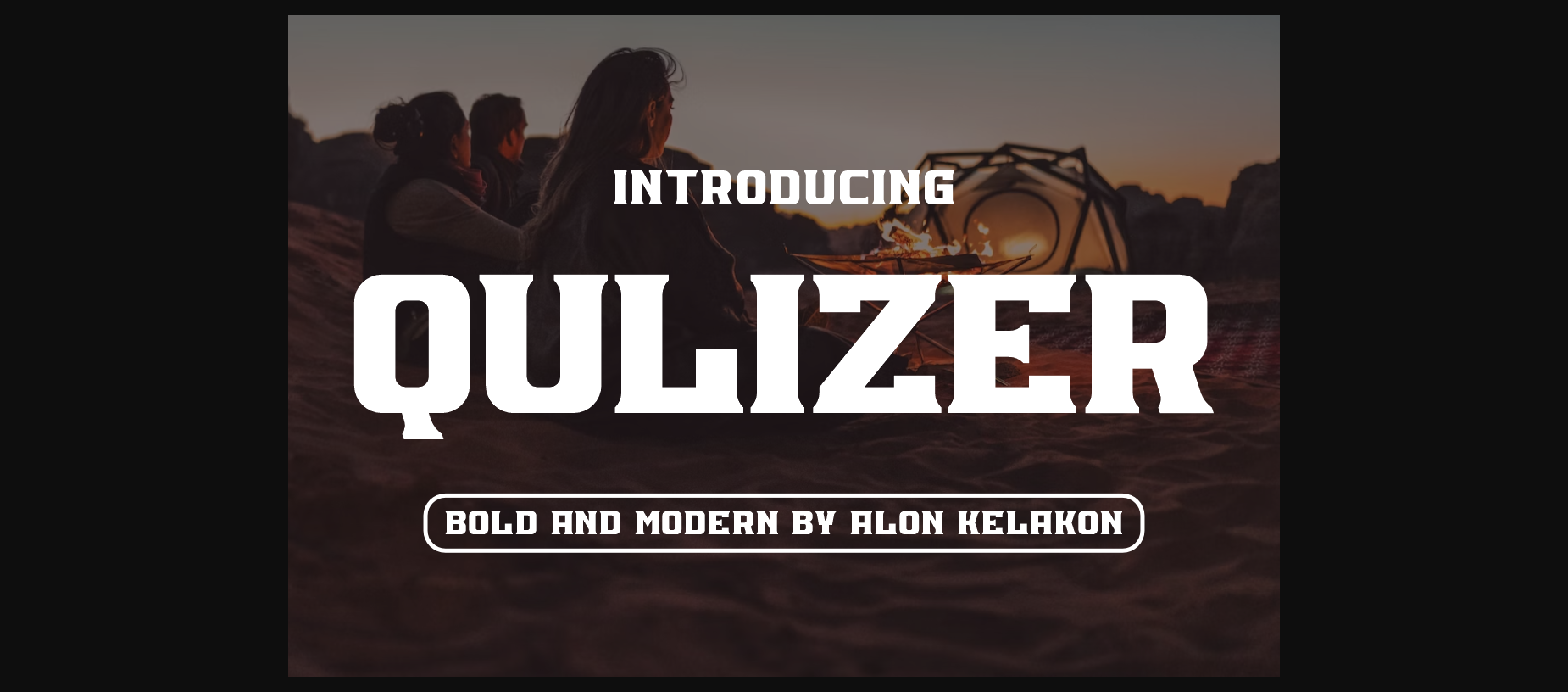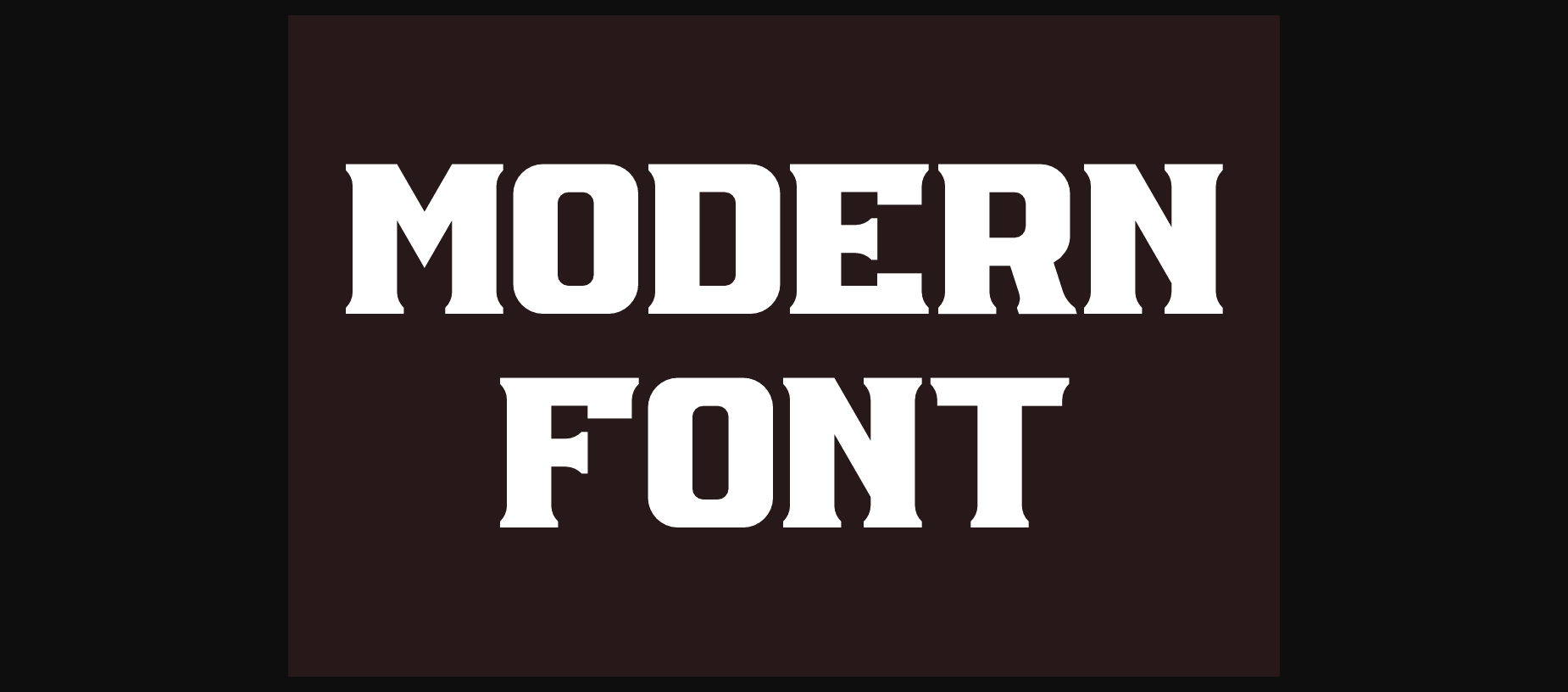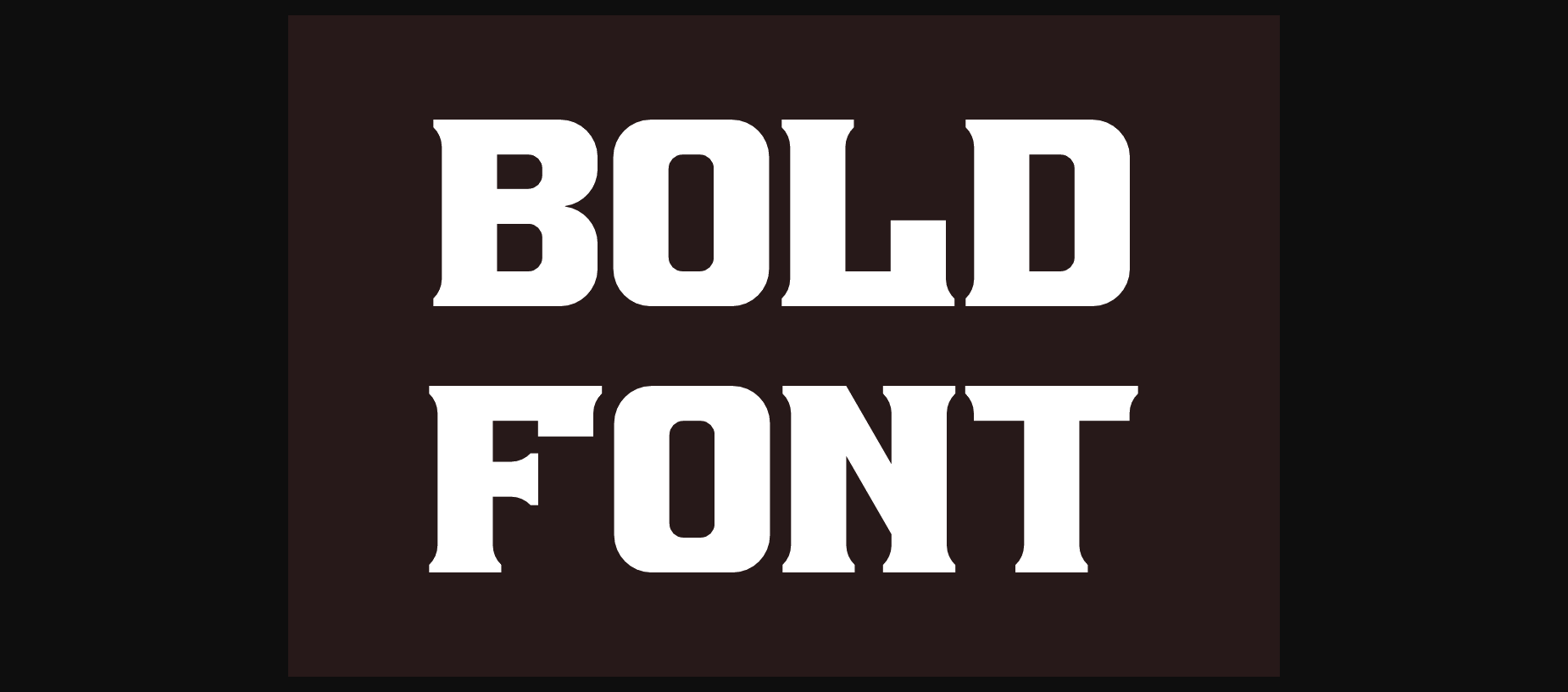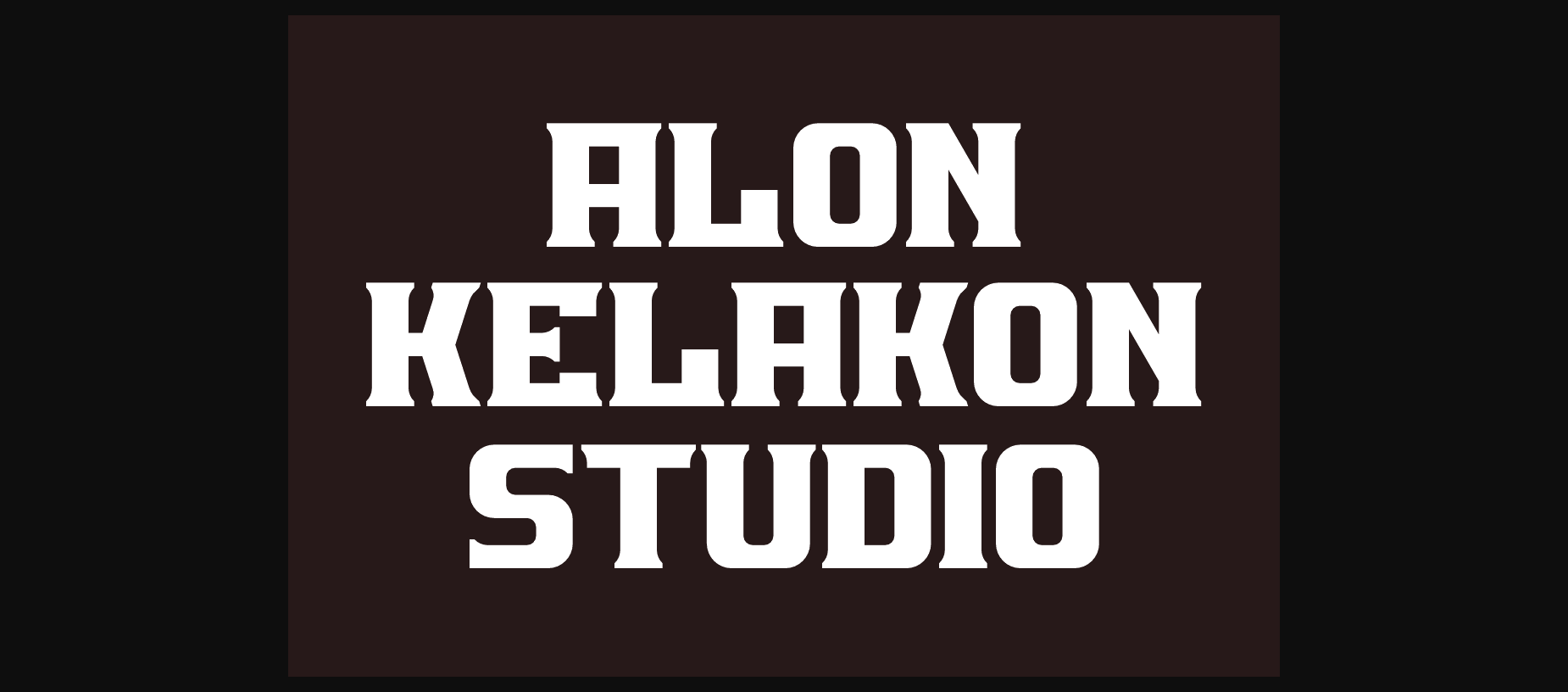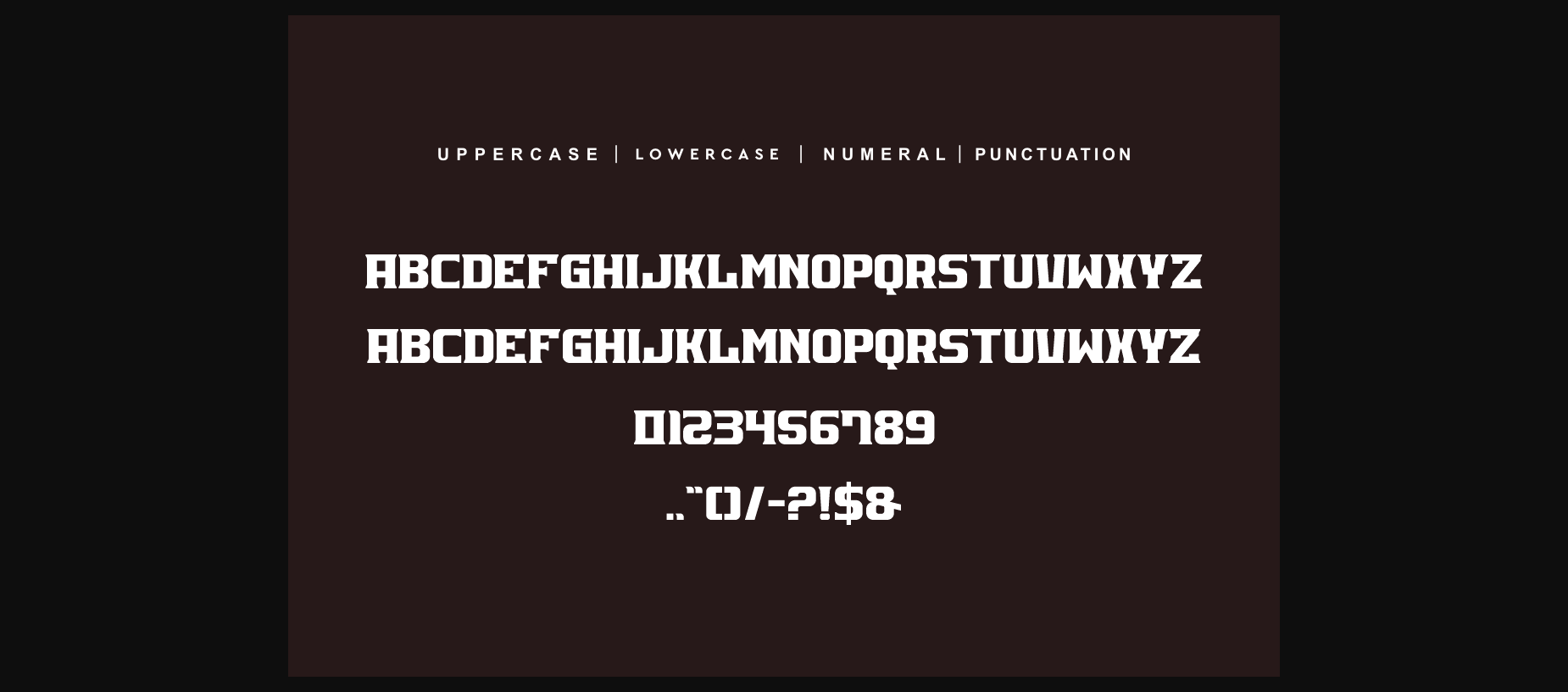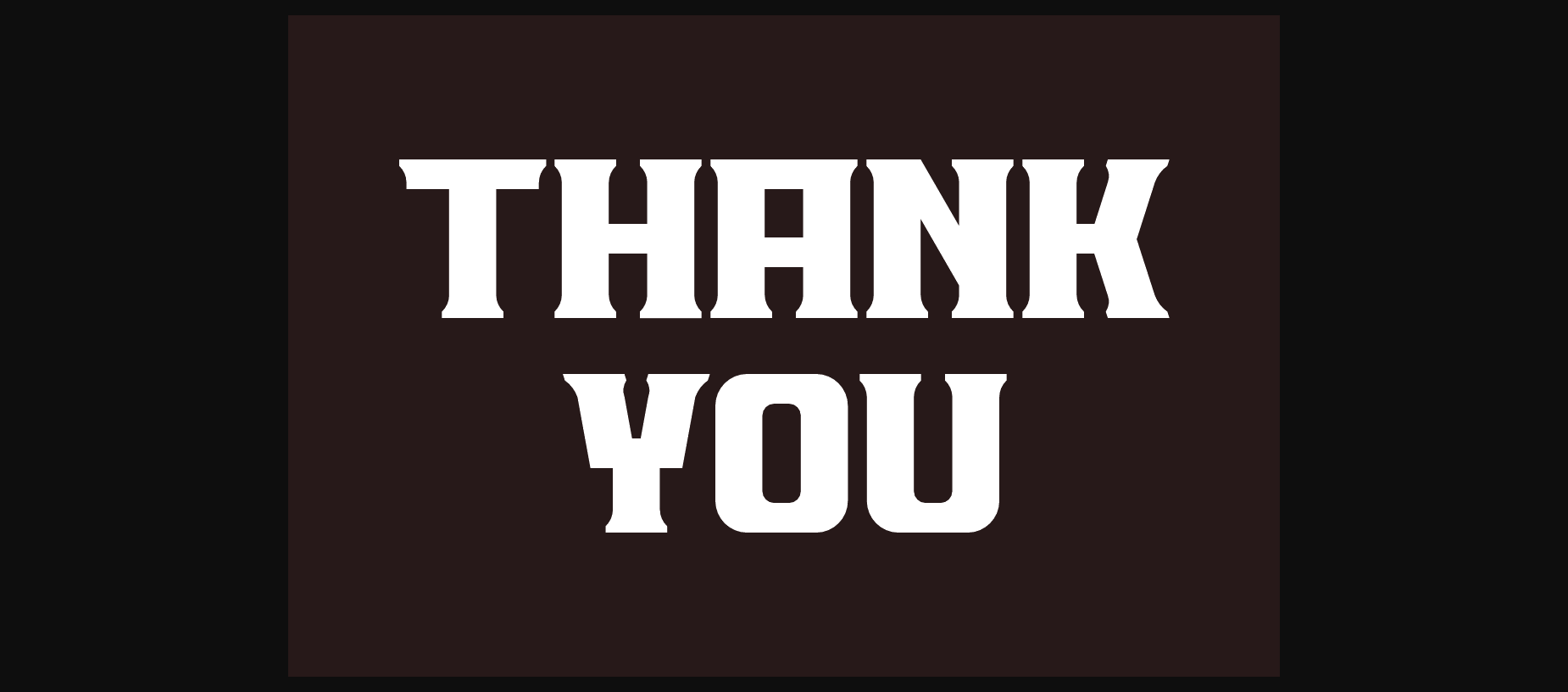
HomeSans Serif FontsQulizer Font Sans Serif Fonts Qulizer Font FacebookXPinterestWhatsApp 1 of 8 ... Qulizer Font Poster 2... Qulizer Font Poster 3... Qulizer Font Poster 4... Qulizer Font Poster 5... Qulizer Font Poster 6... Qulizer Font Poster 7... Qulizer Font Poster 8... About Qulizer Font Qulize ris a bold and assertive sans serif font. It is perfect for use on billboards, social media, posters, business cards, web design and so much more. DOWNLOAD NOW People also explored Michaello Font Marigold Flowers Font Transcript Font House Chick Font Kids Rock Font Dlinepro Font Green Avocado Font Raellisca Font North Blue Font 480 0 TagsQulizerQulizer Font Previous articleNightmare FontNext articlePokeman Font LEAVE A REPLY Cancel reply Comment: Please enter your comment! Name:* Please enter your name here Email:* You have entered an incorrect email address! Please enter your email address here Website: Save my name, email, and website in this browser for the next time I comment. Personal Use Free Farmgarden Personal Use Free Read more about this font Mellow Personal Use Free Read more about this font Hatchill Personal Use Free Read more about this font Child Writing Free Personal Use Free Read more about this font BLOG 5 Fonts That Will Dominate Design Trends in 2026 5 Fonts for 2026 That Will Dominate Design Trends Typography plays a critical role in visual communication, and as we look ahead to 2026, it’s... Transform Your Website: Elevate Your Typography with 7 Best Web Font Generators Top 10 Handwritten Fonts That Elevate Your Designs Elegant Wedding Invitation Fonts – Handwritten & Script Fonts